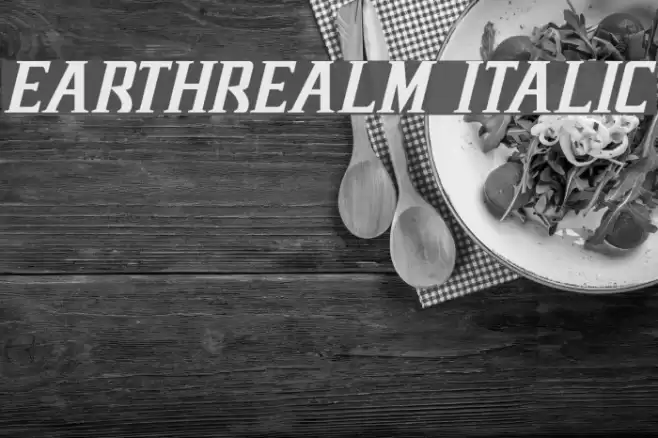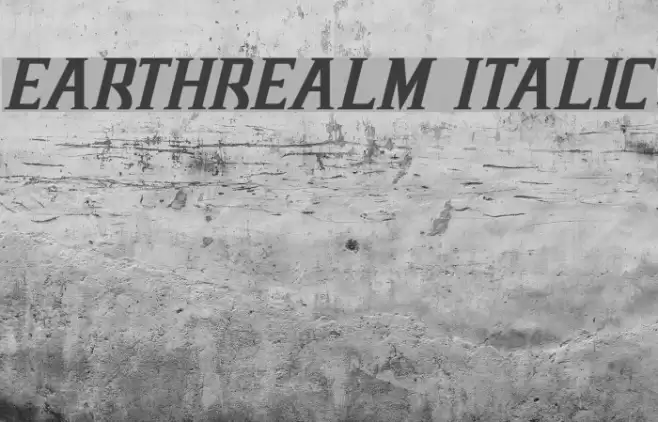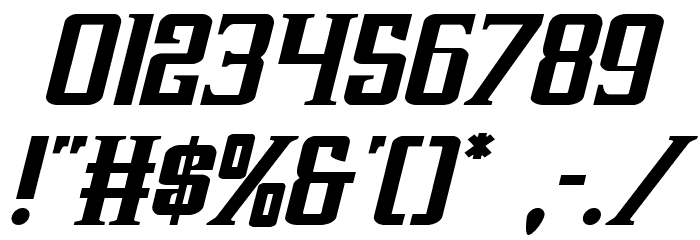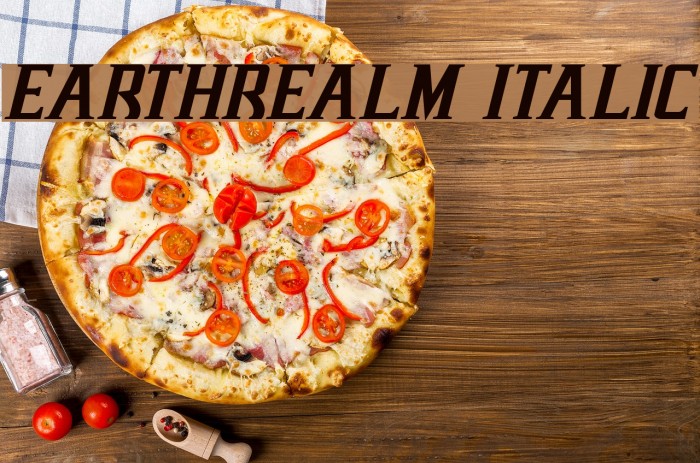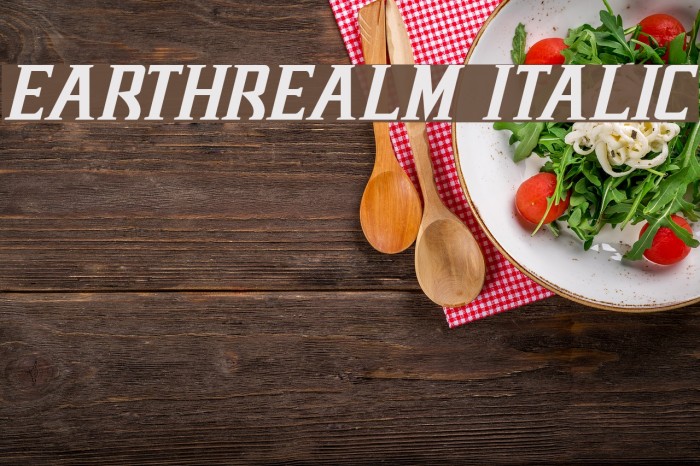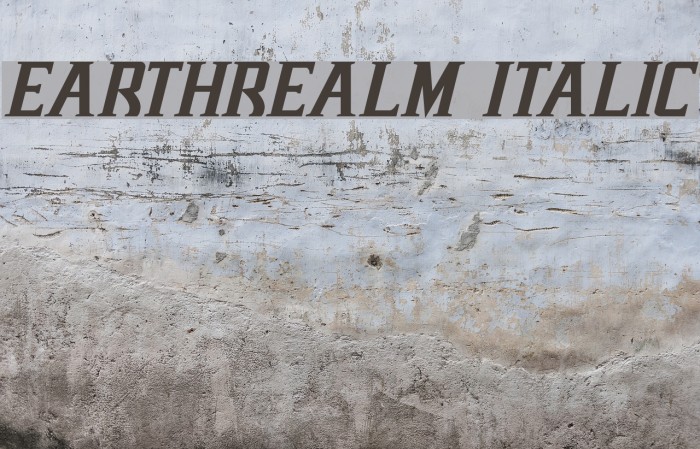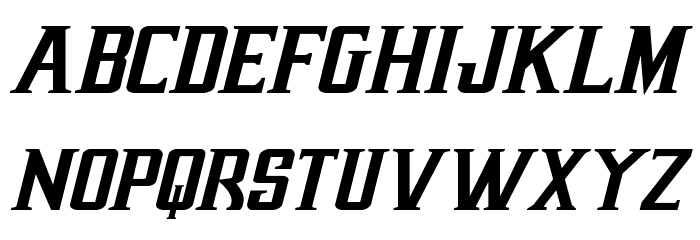
Earthrealm Italic Font
Earthrealm Italic Description
This font features a bold and dynamic italic style, characterized by its sharp angles and strong presence. The letters are slightly condensed, giving it a compact and powerful look. The uppercase and lowercase characters maintain a consistent slant, enhancing the italic effect. The numbers and special characters are designed with the same boldness, ensuring uniformity across all elements. The font's high contrast in stroke thickness adds to its striking appearance, making it suitable for attention-grabbing designs.
A bold, italic font with sharp angles and high contrast, perfect for impactful designs from Uncategorized fonts.
- Proposed Projects: Ideal for sports branding, action movie posters, dynamic logos, and bold headlines.
- Character Spacing: Tight